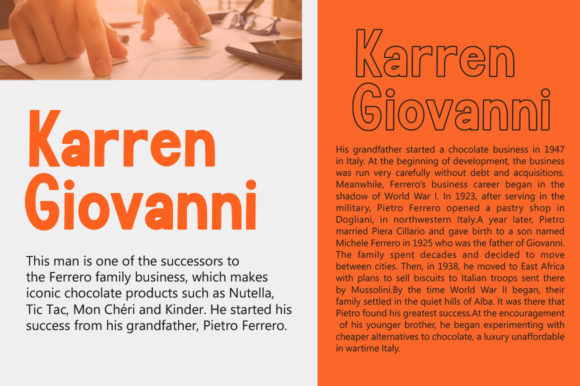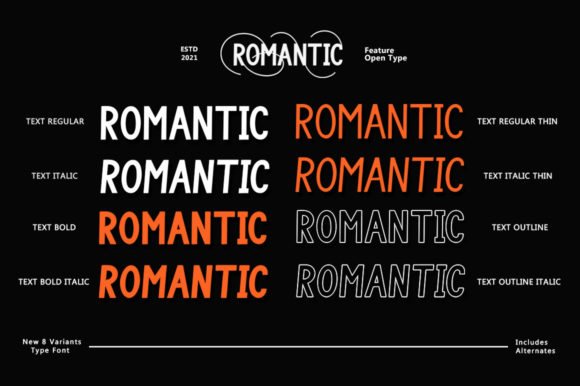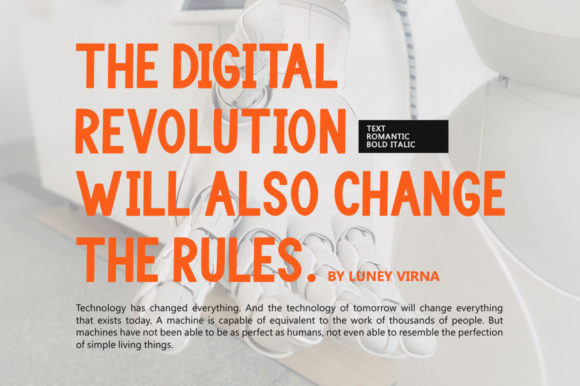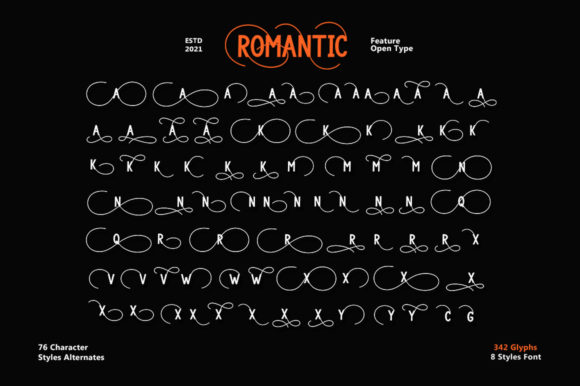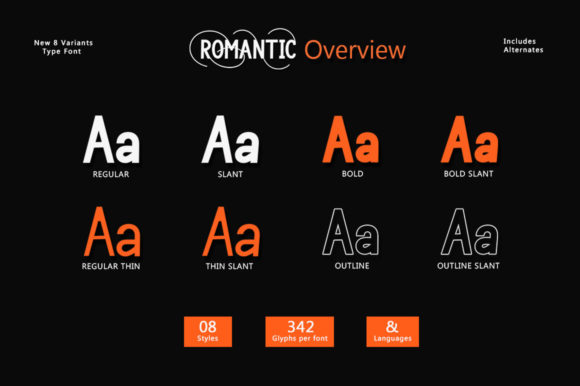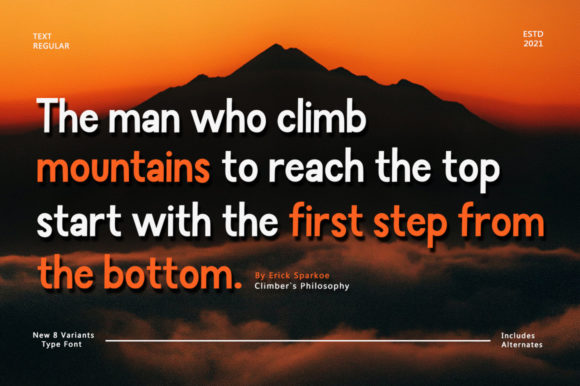
Introduction to Romantic Family Font
Romantic is a versatile font family.
Strong uppercase and smooth open lowercase are effective in a variety of applications and have 8 elegant styles Geometric, almost monoline construction provides classic durability, smoothed with soft edges and vivid shapes.
Key Features of Romantic Family Font
Why Choose Romantic Family Font?
Romantic Family Font offers exceptional quality and versatility, making it a valuable addition to your design toolkit. Whether you’re creating for personal projects or commercial use, Romantic Family Font delivers professional results.